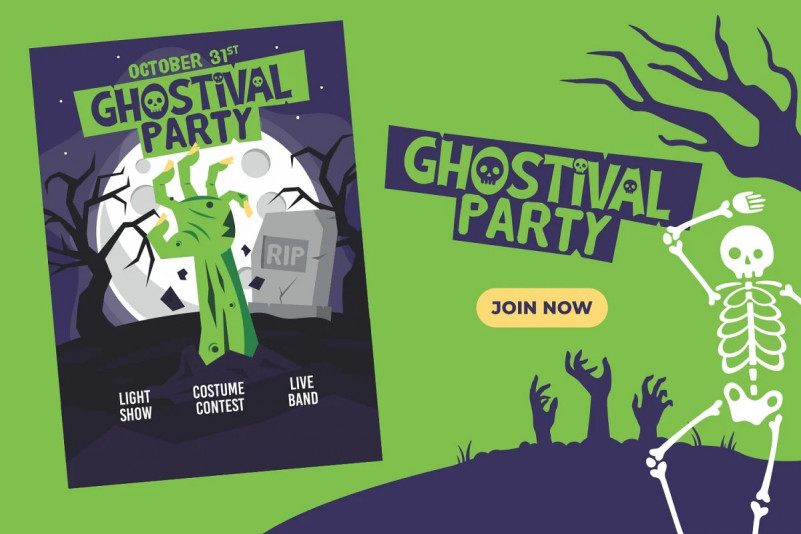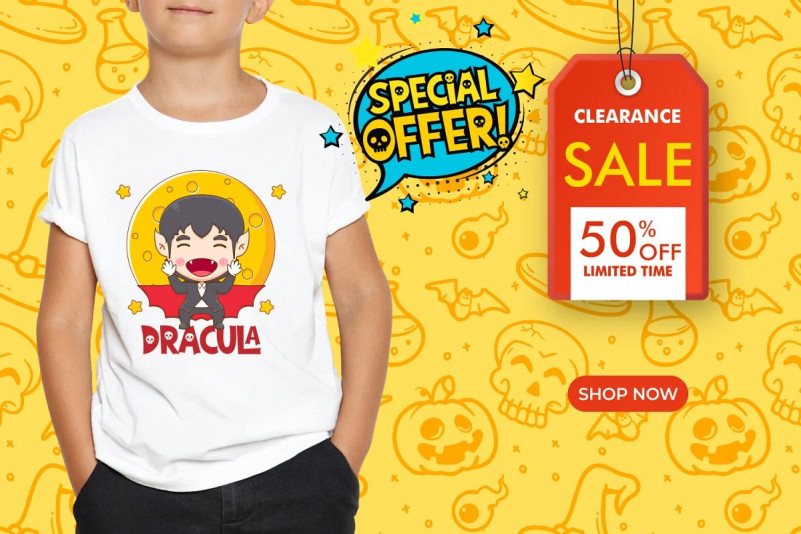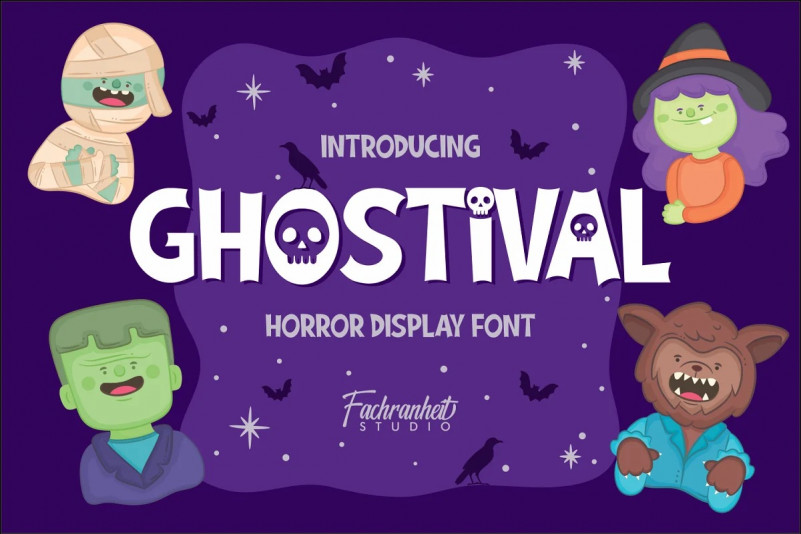
Ghostival Display Font
Introducing New Fonts, A wonderful collection for your various special projects. Ghostival Font.
Ghostival is a bold display font, carefully handcrafted to become a true favorite. with funny horror style. Spooky and unique, it will be the perfect choice for each of your Halloween designs!
The unique and simple characteristics of Ghostival make it very suitable for various purposes such as quotes, t-shirt designs, flyers, youtube channels, labels, logos etc.